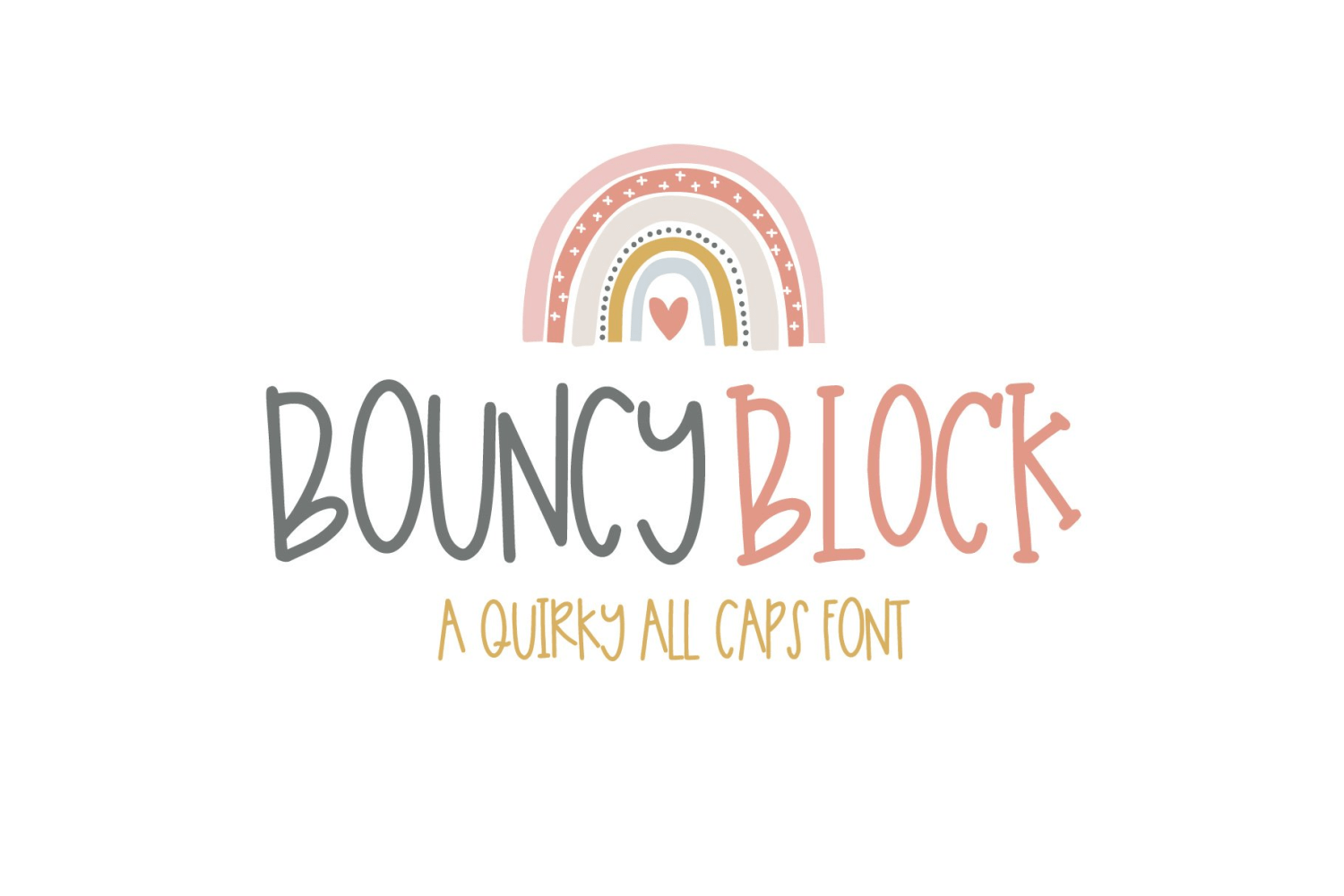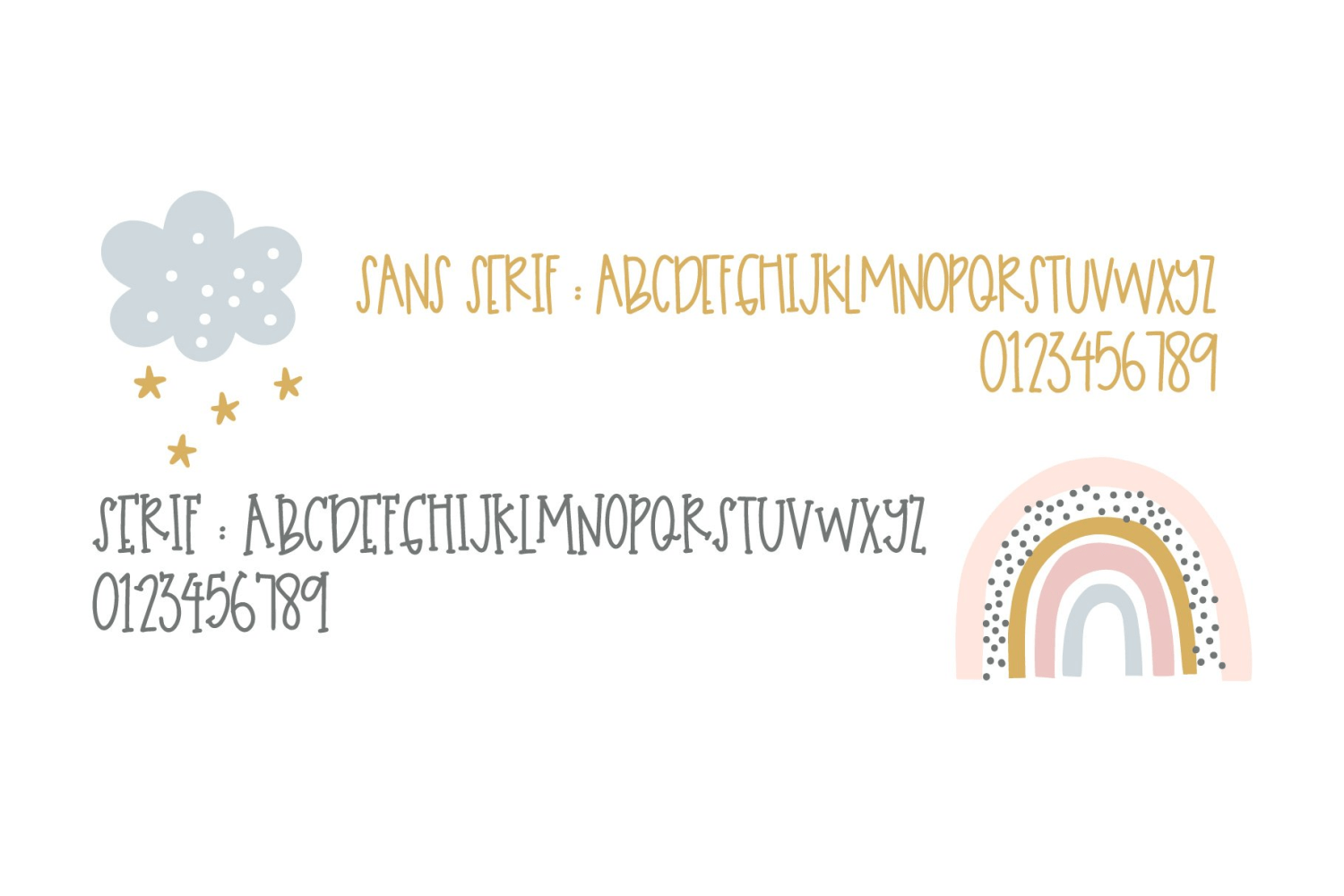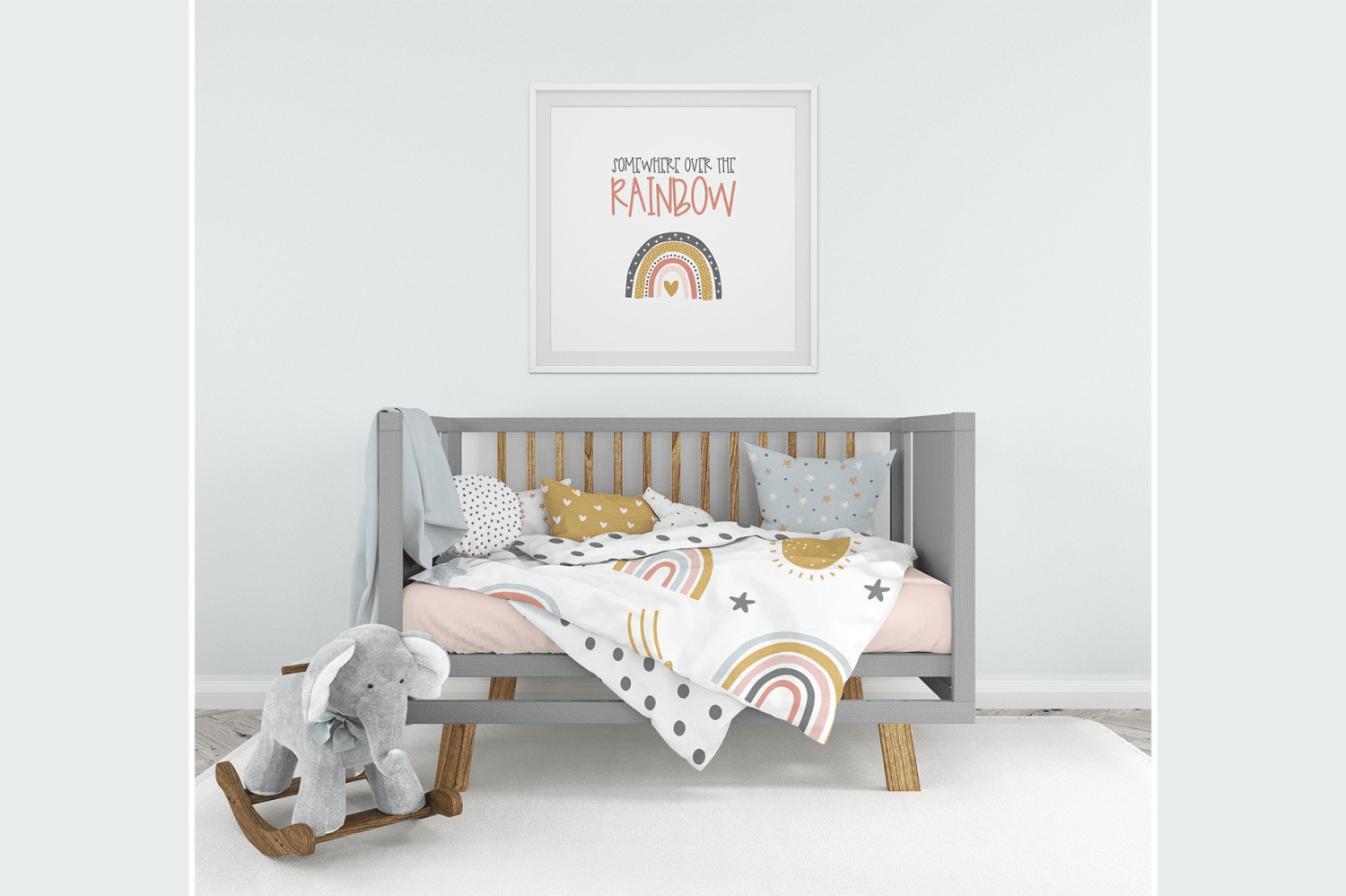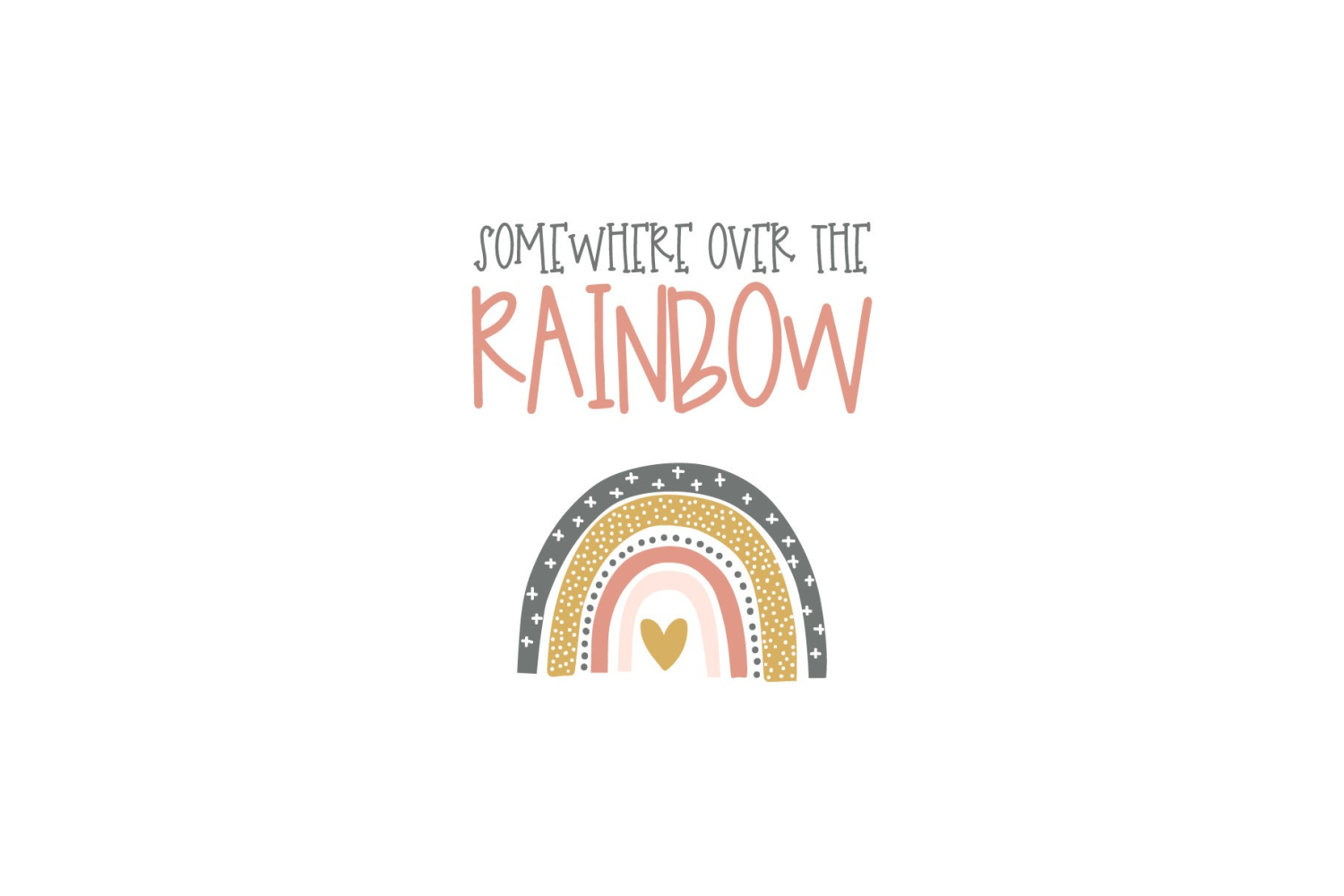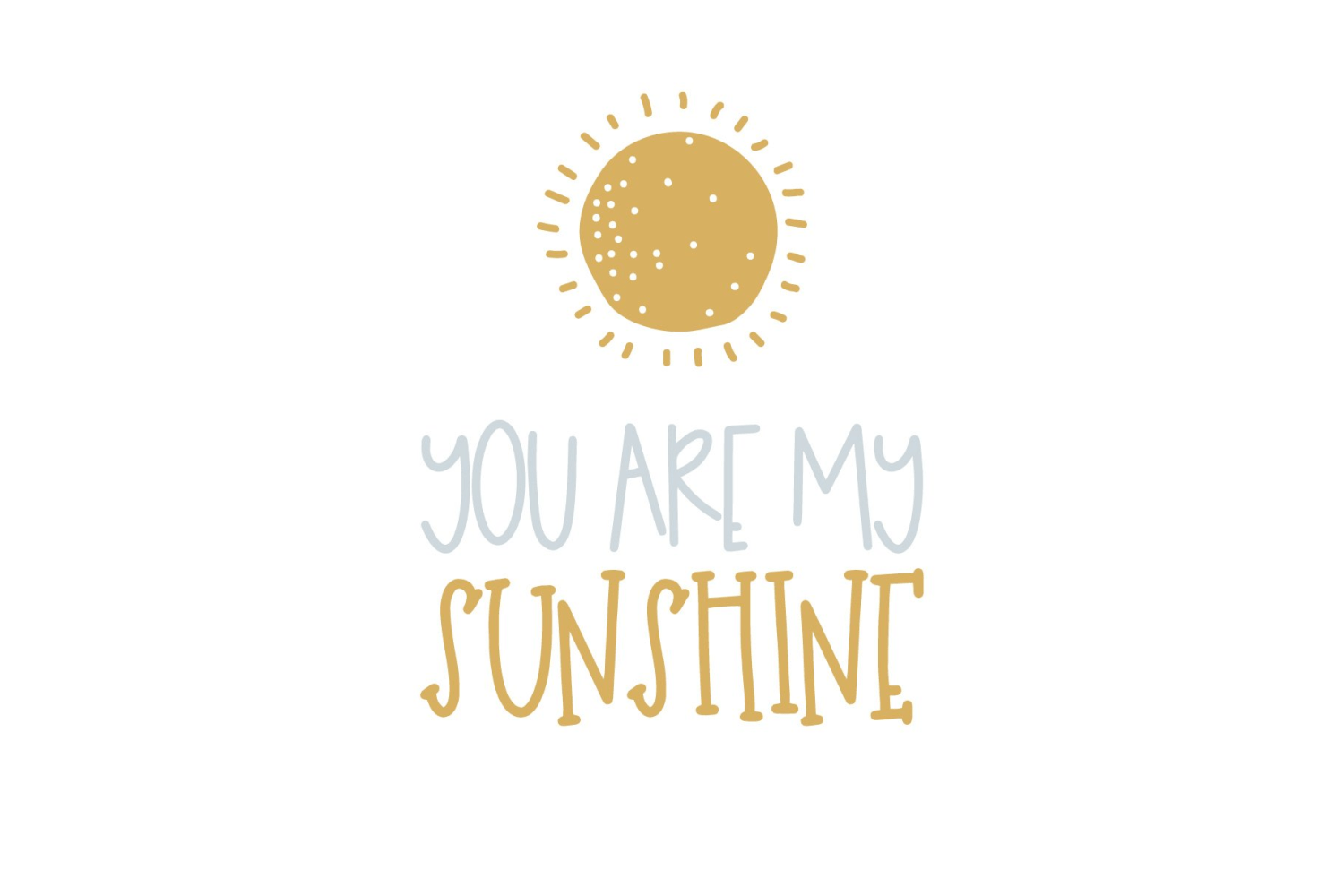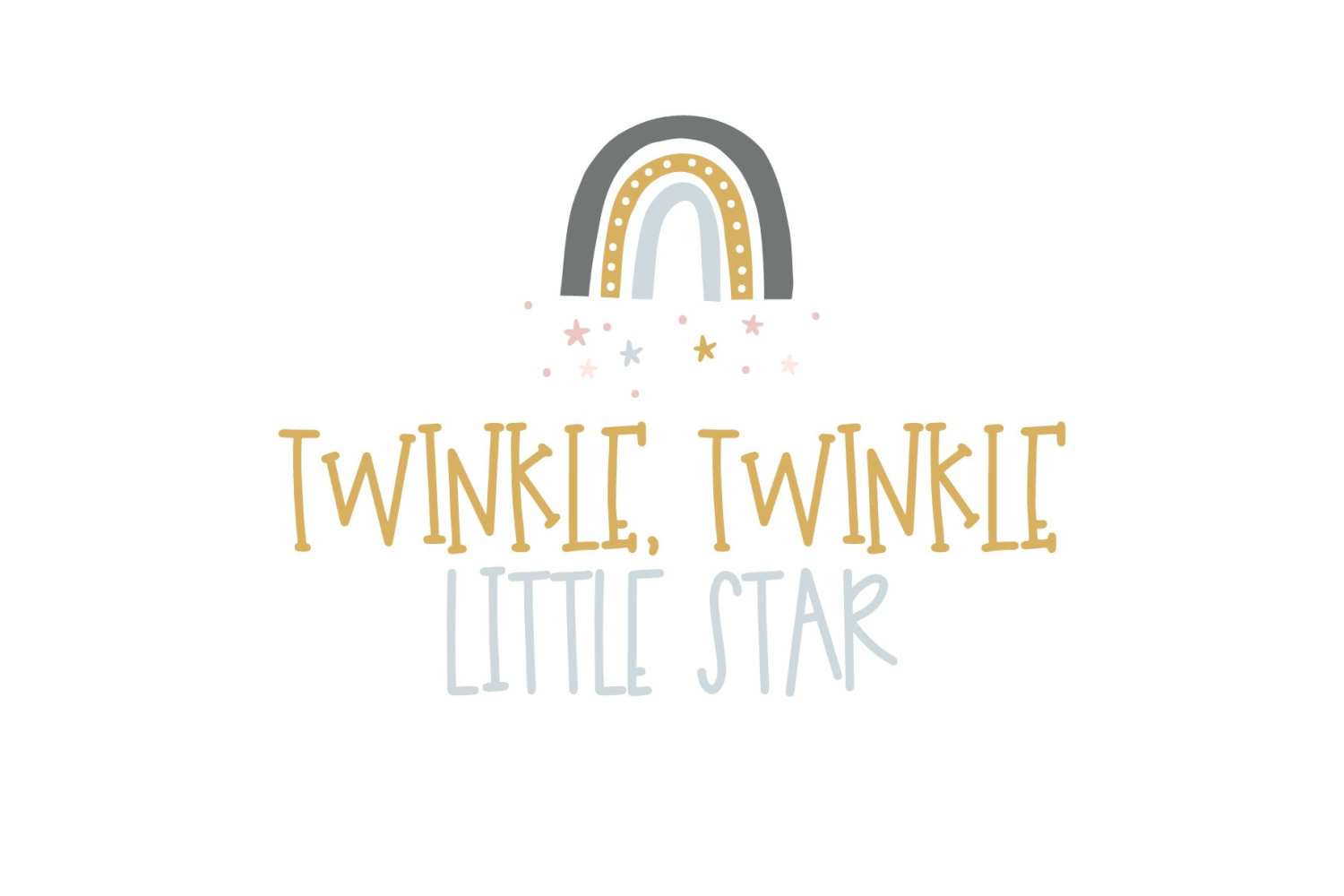
Bouncy Block
Font Family by On The Spot Studio
Quirky and New Sans and Serif font from OTSS! Perfect for nursery graphics, tee designs, holiday or greeting cards and so much more!